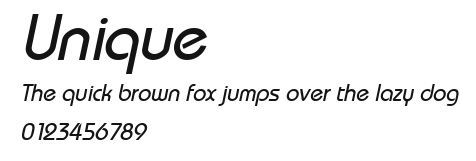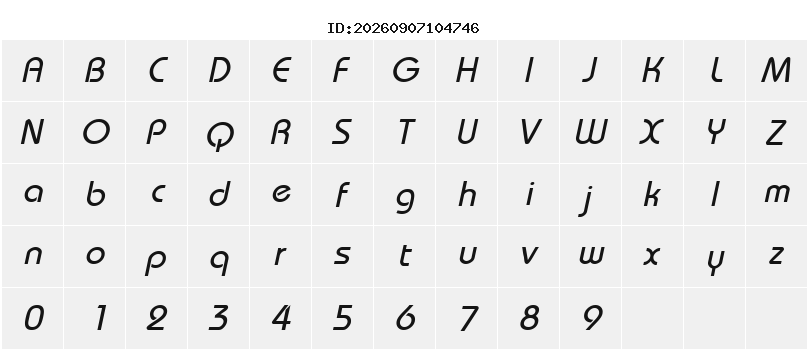
• Font Name: Unique
• Font Style: Oblique
• Full Font Name: Unique Oblique
About Unique.ttf
Unique.ttf is a modern, elegant sans-serif font designed for ultimate readability and visual harmony. Perfect for branding, headlines, web design, and print materials.